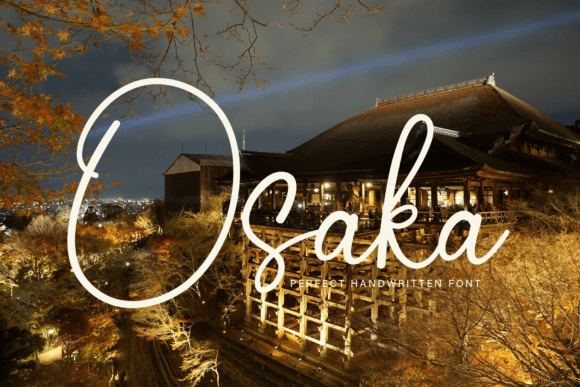
Unleash the captivating power of Osaka Font, a calligraphy masterpiece that dances across your designs, leaving behind a trail of elegance, charm, and awe. This exquisite script font, the brainchild of the talented pinkmeca, boasts a timeless style that speaks volumes, even when silent.
Glide your eyes over its graceful curves, flowing with the finesse of a master calligrapher, and fall in love with its intricate details, crafted with a precision that demands attention. It's a symphony of strokes, a masterpiece of penmanship brought to life in digital form.
With Osaka Font, your posters take on a life of their own, becoming vibrant, eye-catching creations that command attention from across the room. It's the perfect font for those larger-than-life projects, where every letter tells a story, and every word paints a picture.
Step into a world where typography meets art, where letters dance harmoniously, and words transform into visual poetry. Let Osaka Font be your guide on this extraordinary journey, filling your projects with an emotive, personal touch that leaves a lasting impression.